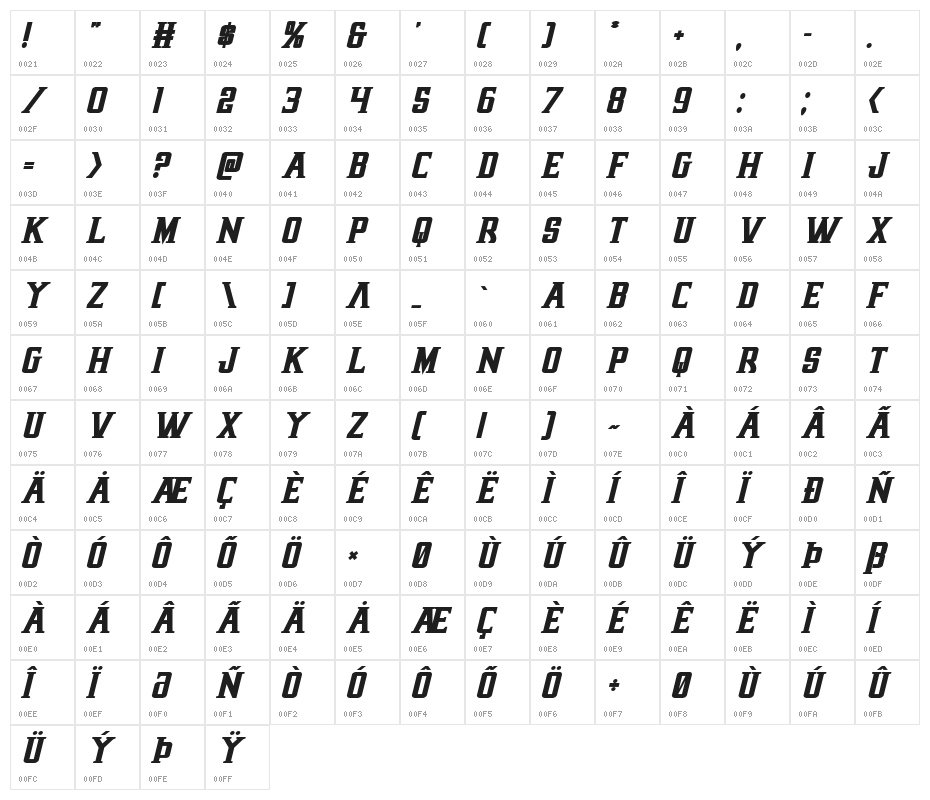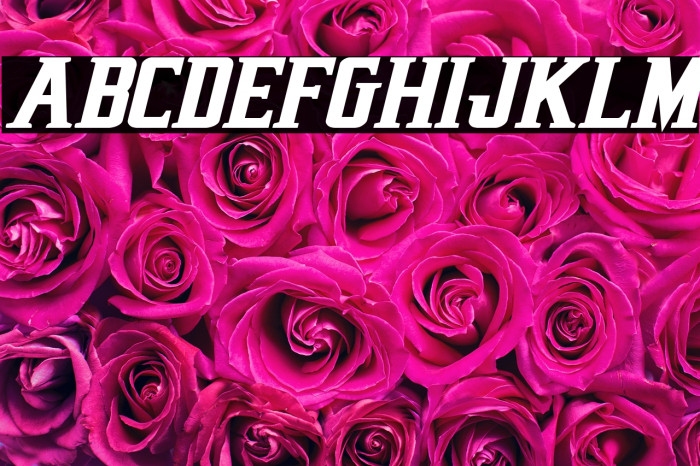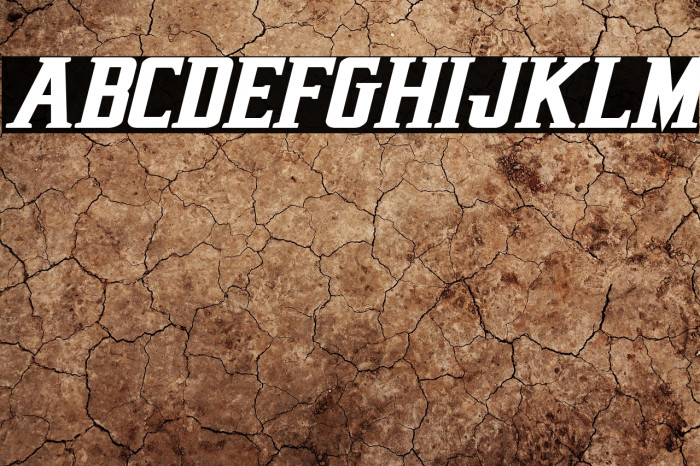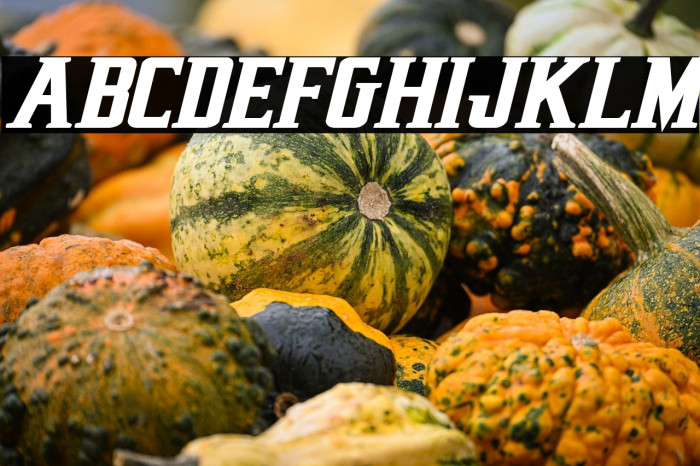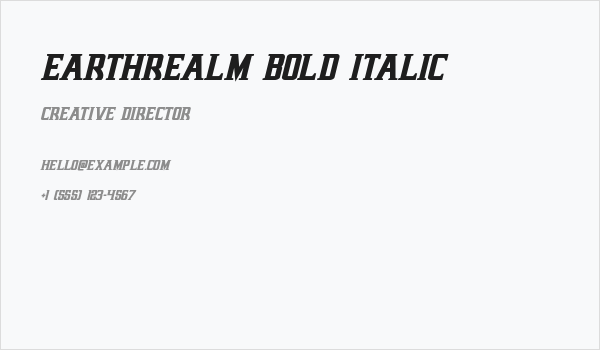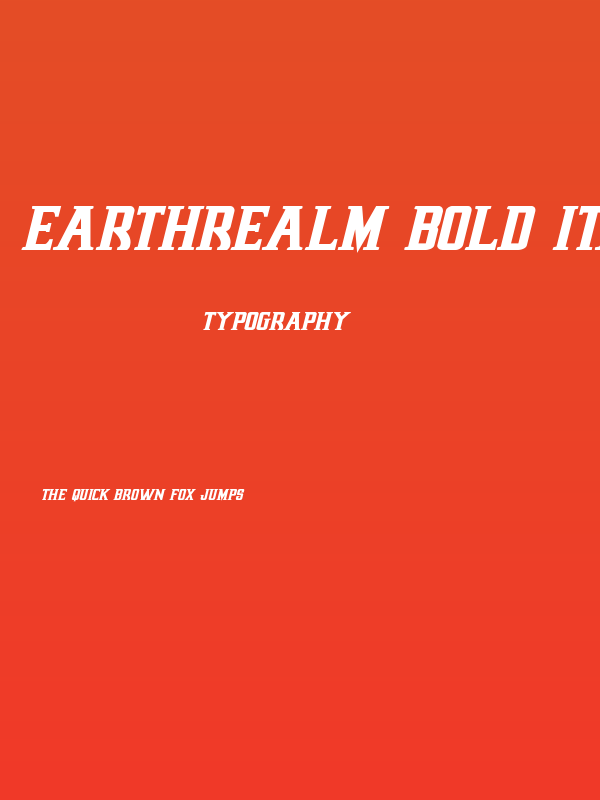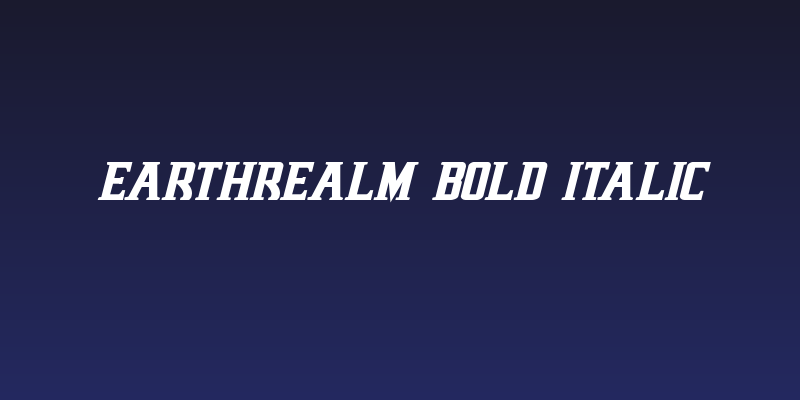
Earthrealm Bold Italic Font
Earthrealm Bold Italic Description
This font features a bold and italicized style with a strong, dynamic presence. The characters are sharply angled, giving a sense of motion and energy. The uppercase and lowercase letters maintain a consistent slant, enhancing the italic effect. The numbers and special characters follow the same design principles, ensuring uniformity across the typeface. The strokes are thick, contributing to the boldness, while the spacing between characters is relatively tight, which adds to the compact and impactful appearance. This font is well-suited for projects that require a striking and modern look.
| Proposed Projects | Ideal for sports branding, action movie posters, video game titles, and dynamic logos. |